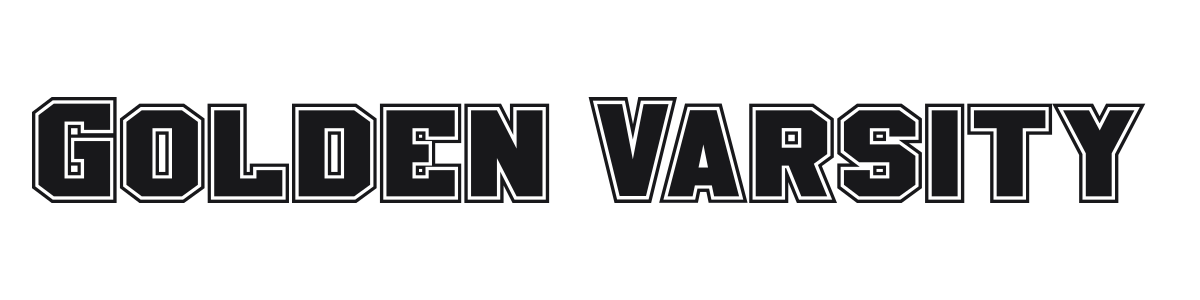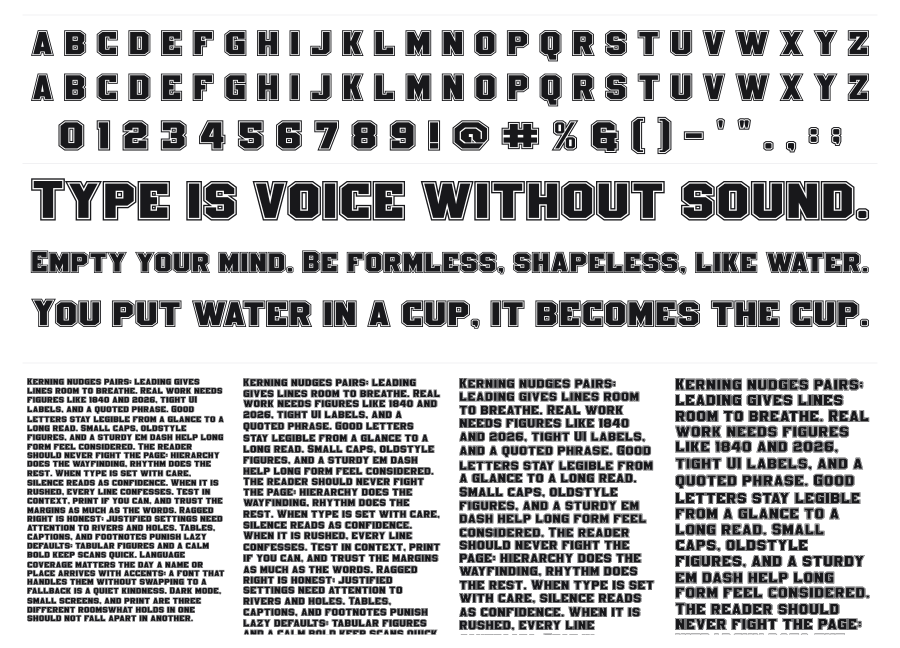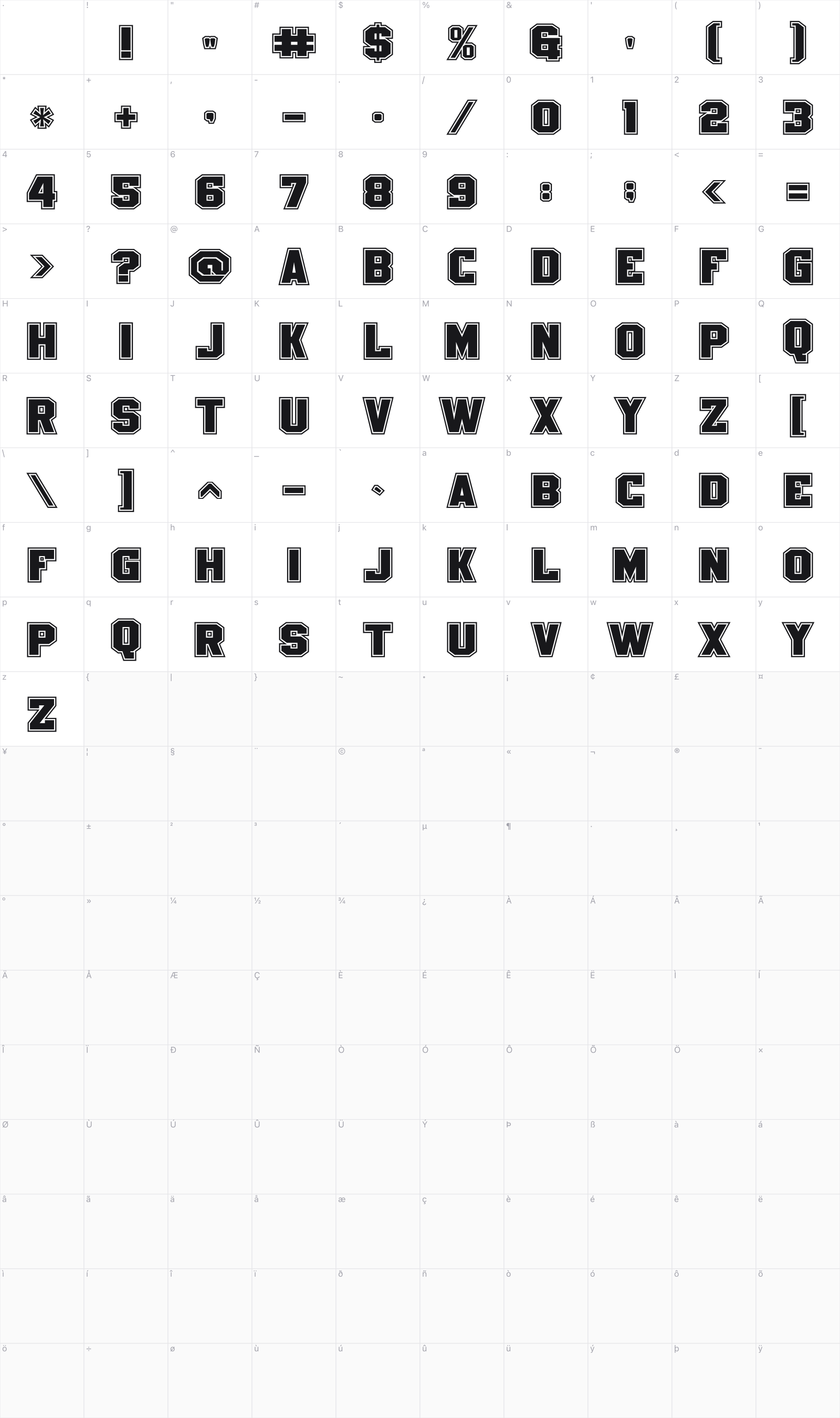
Golden Varsity
Golden Varsity is a bold collegiate display face rooted in classic American varsity lettering traditions. Each character features a heavy slab-serif construction layered with an inline stripe and outer outline, creating a stacked dimensional effect straight out of vintage team uniforms and stadium signage. It carries unmistakable athletic energy suited to sports branding, streetwear graphics, and retro-themed headlines.